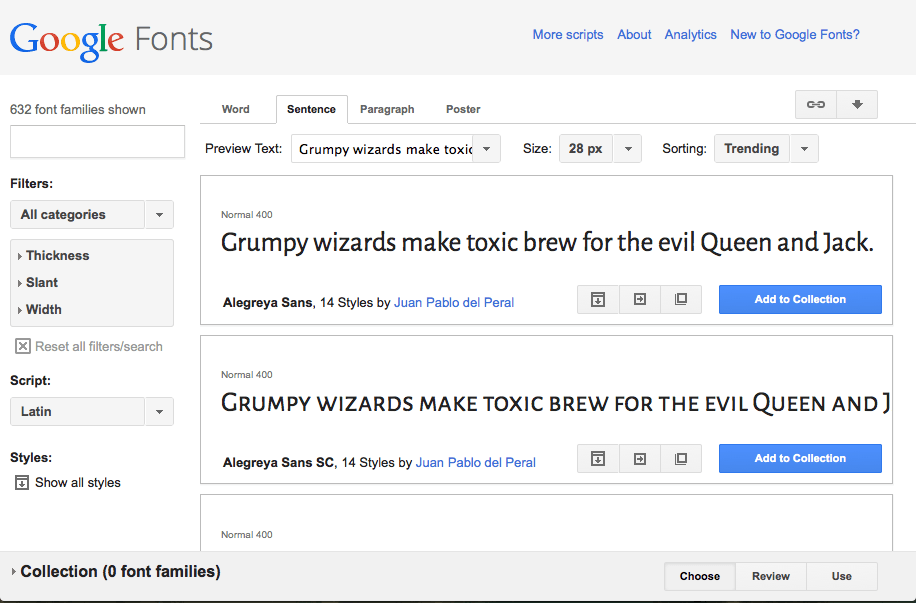
Gooogle Fonts
Gooogle Fonts. Google is currently the biggest search engine in the world as of writing. Free fonts often have not all characters and signs, and have no kerning pairs (avenue ↔ a venue,.
When Paired With A More Subtle Font (Like Josefin Slab Or Libre Baskerville), Six Caps Makes For A Visually Impactful Headline Font.
Google fonts collaborates with type designers, foundries and the design community worldwide to create a directory of open source fonts. Requires internet connection and google account. The lettering for its logotype is very similar to a font called catull bq.
Free Fonts Often Have Not All Characters And Signs, And Have No Kerning Pairs (Avenue ↔ A Venue,.
Google sans is very similar to poppins and montserrat, which are both available via google fonts. Can i use fonts from google fonts in a wordpress theme that i am selling? Google creates friendly and engaging interfaces with its own aesthetically pleasing typography, thanks to the fonts like google sans and product sans.